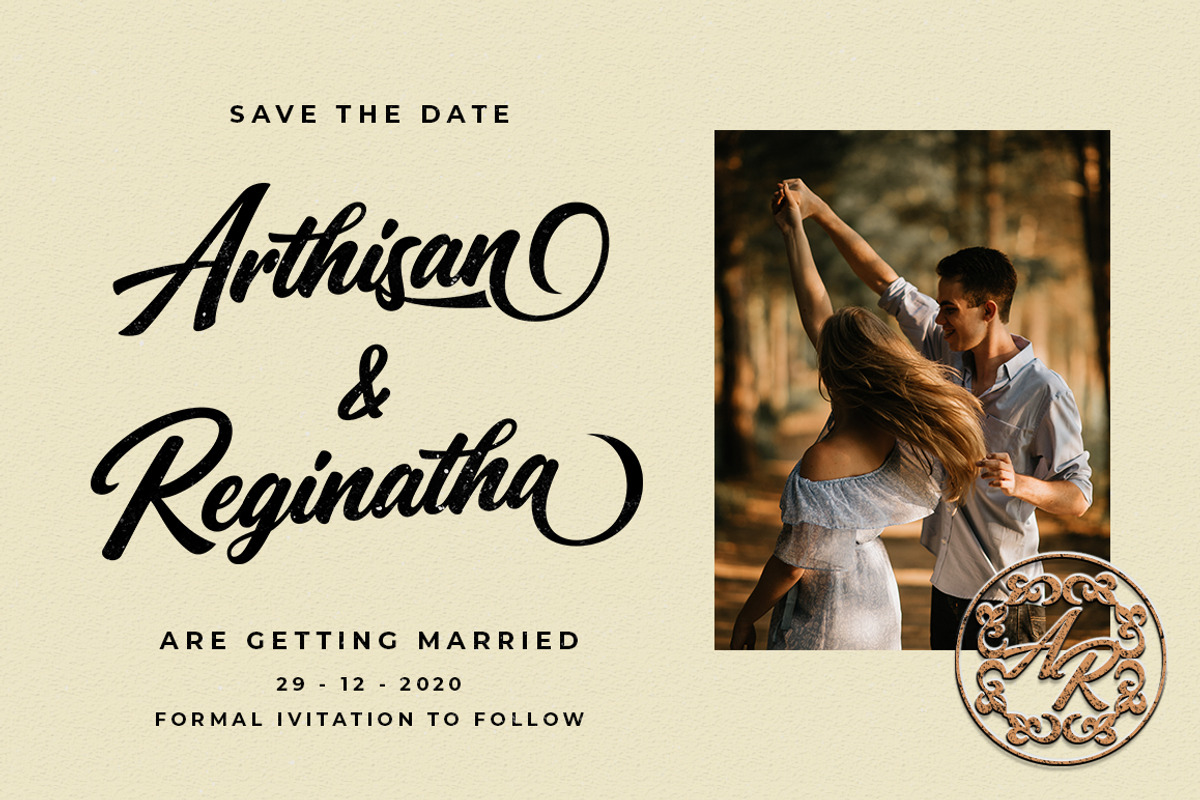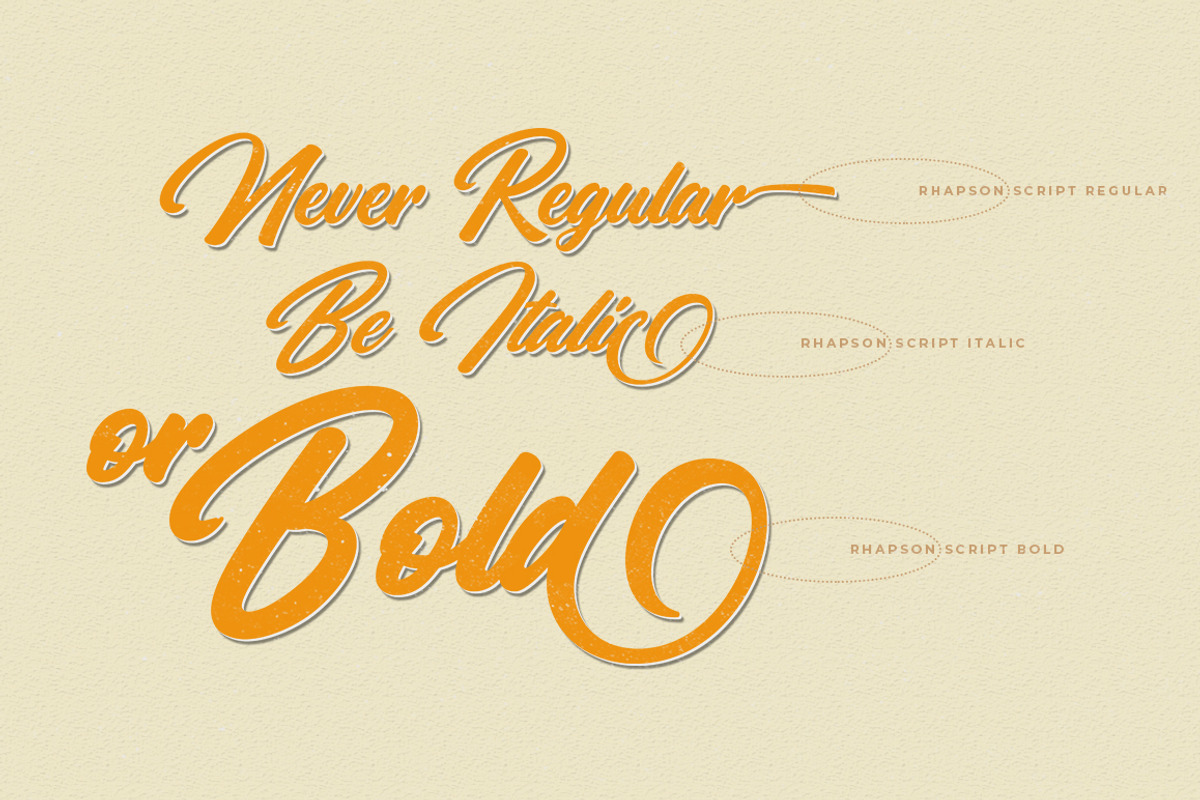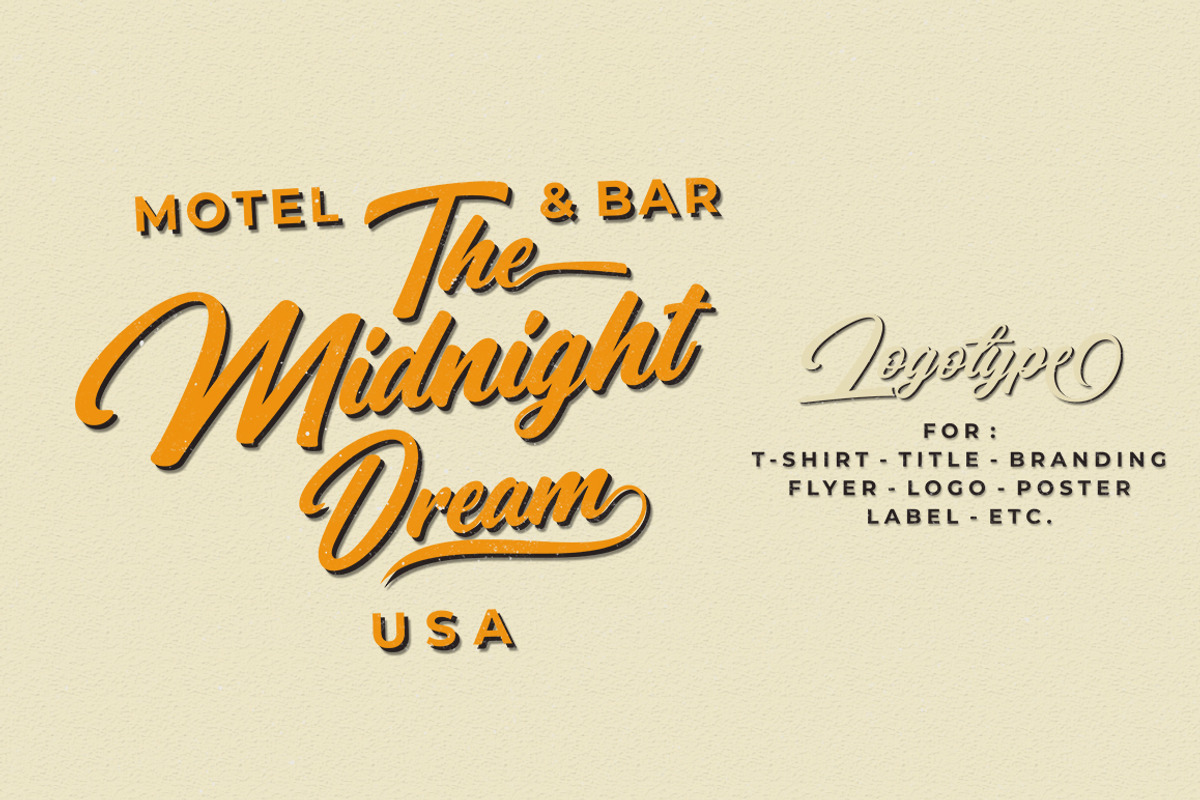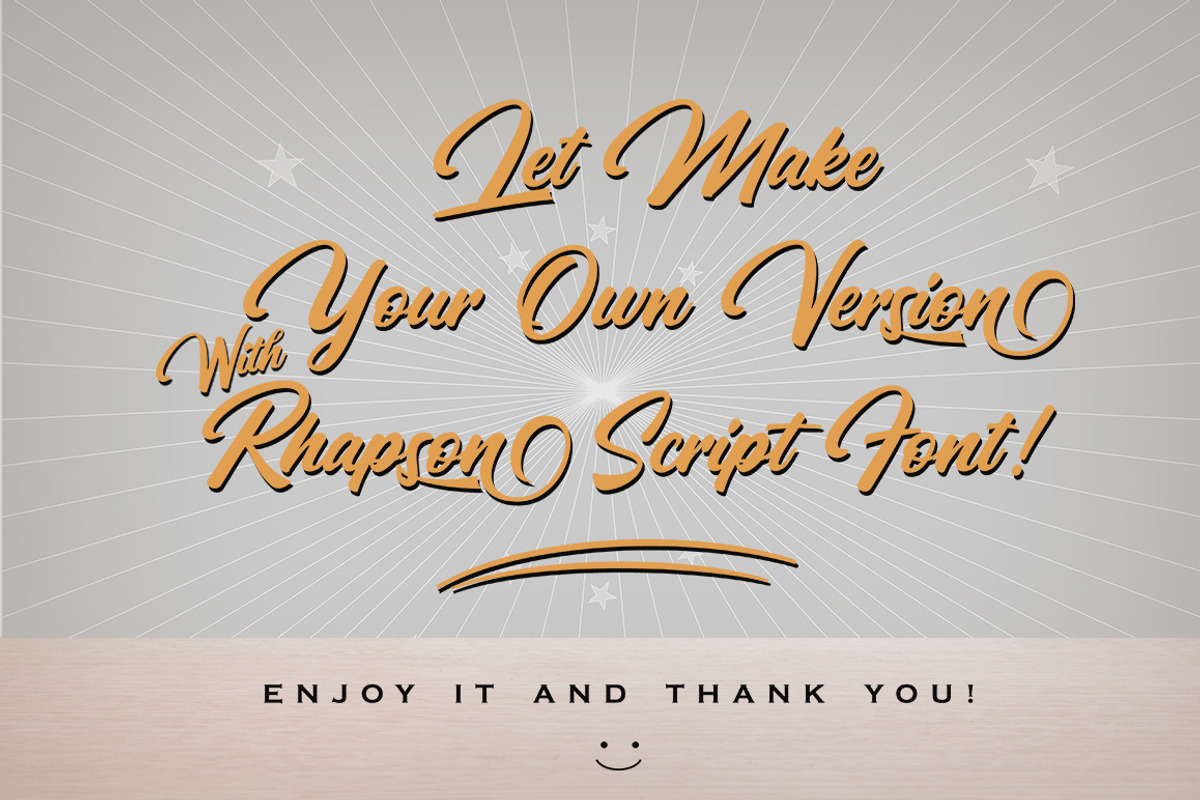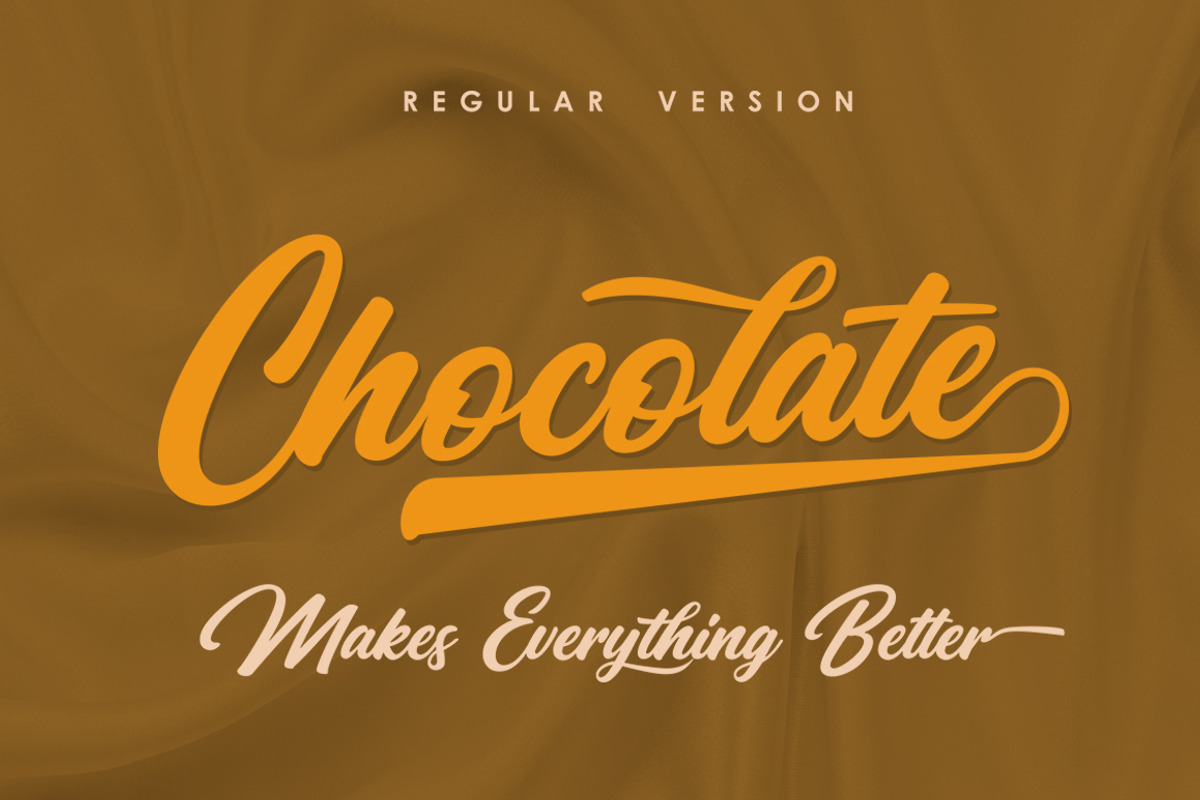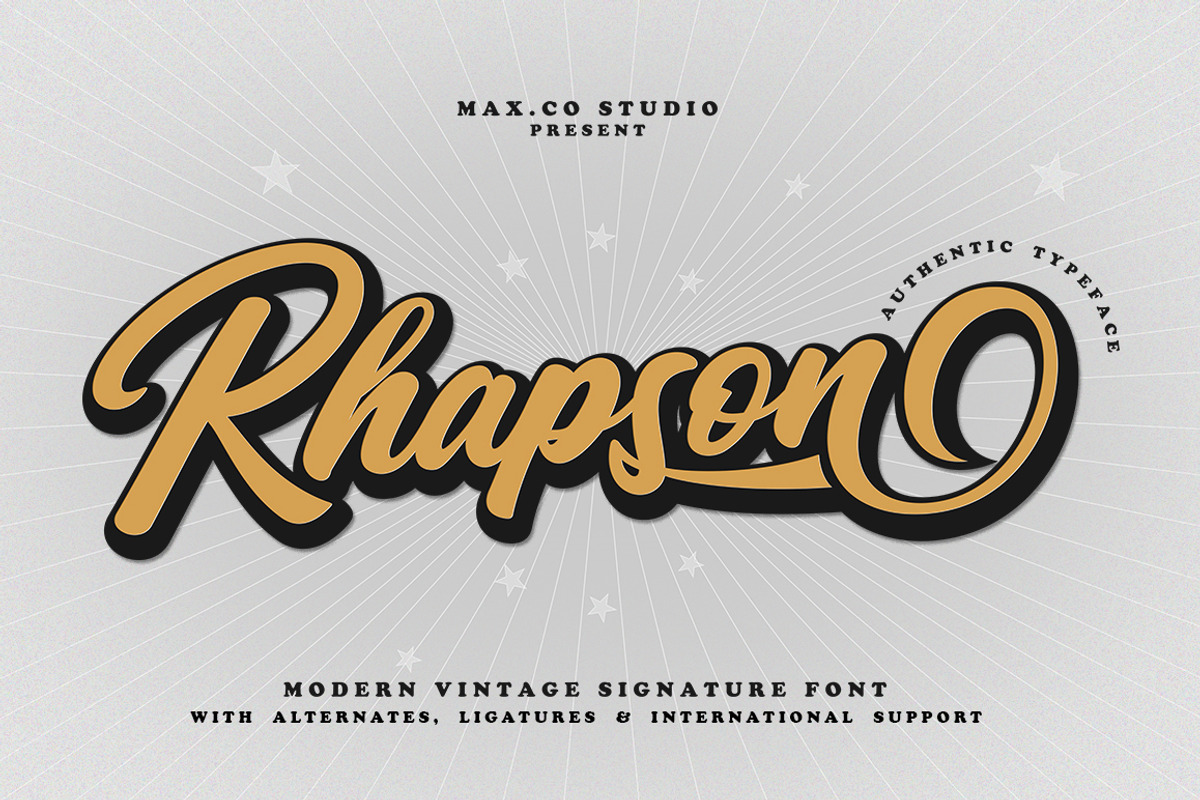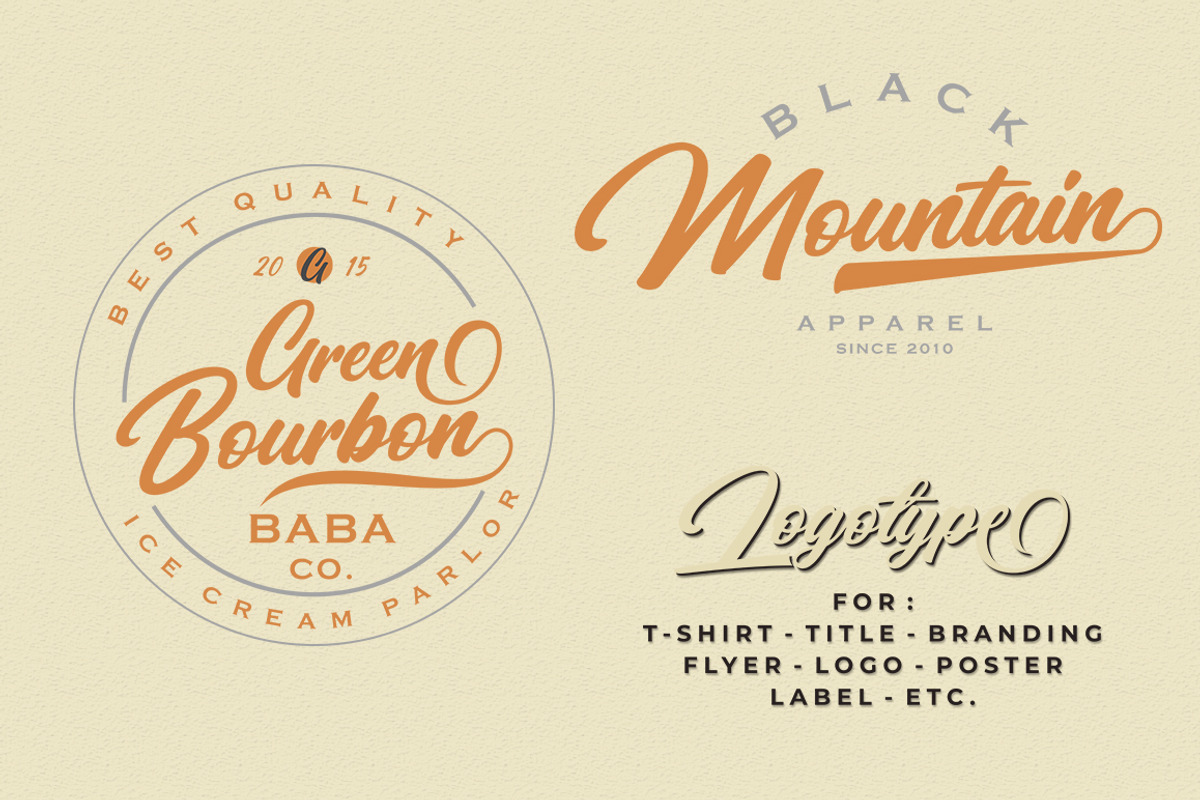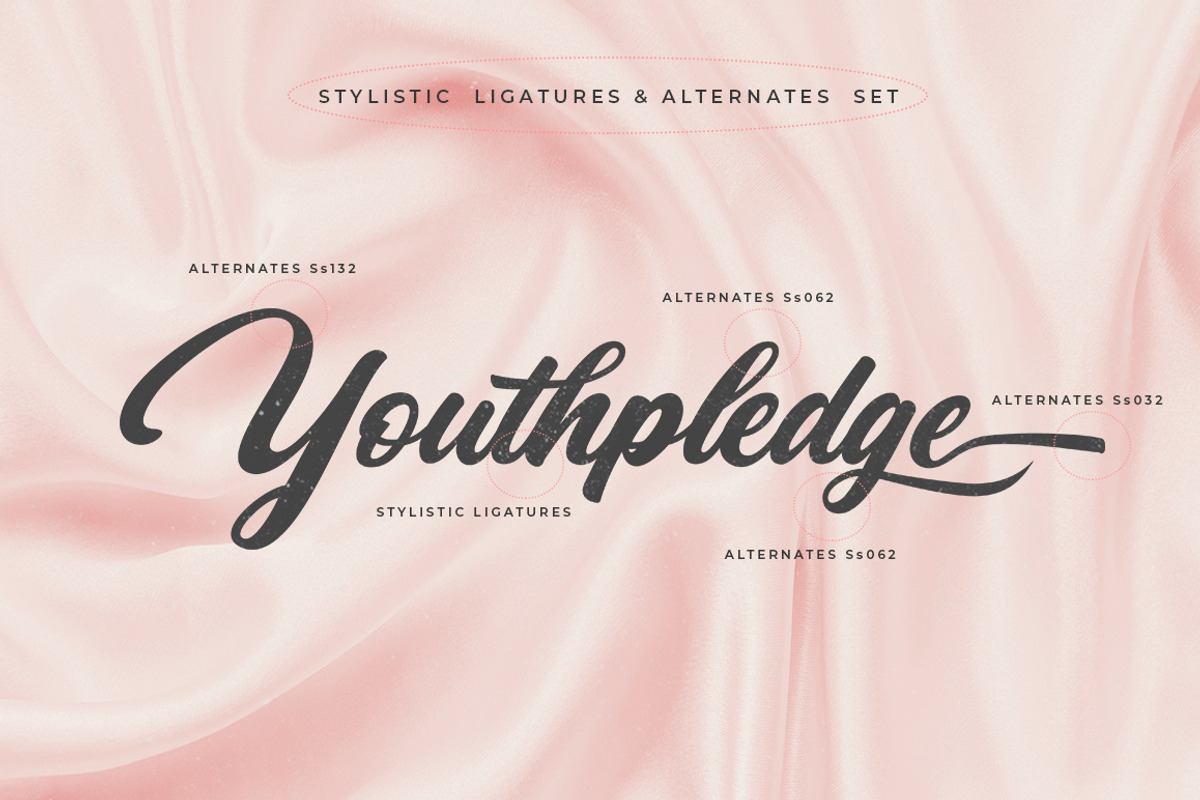
Rhapson Script
Rhapson Script is a soft, bold, elegant & fun vintage script font. Can be used for various purposes such as logos, wedding invitation, t-shirt, letterhead, signage, news, posters, badges etc.
Rhapson Script features 472 glyphs and 196 alternate characters, ligatures, swash and multiple language support.